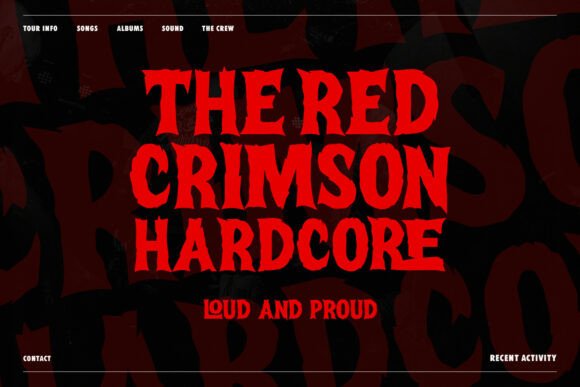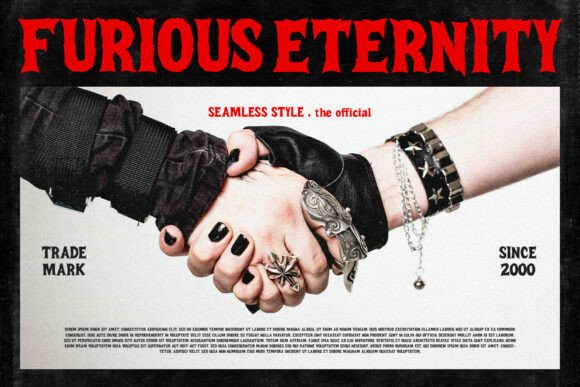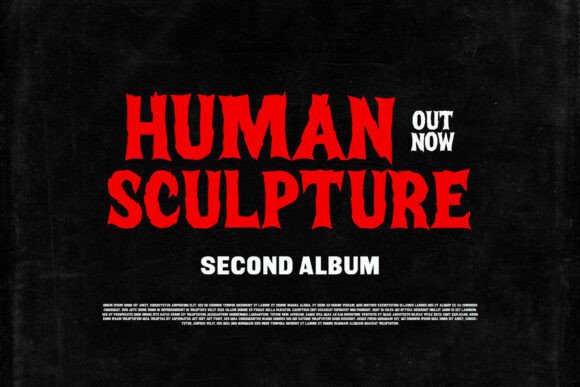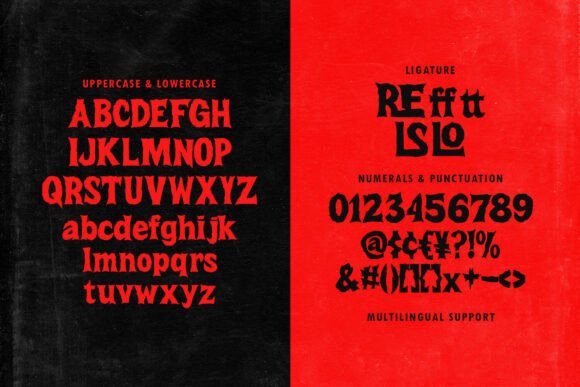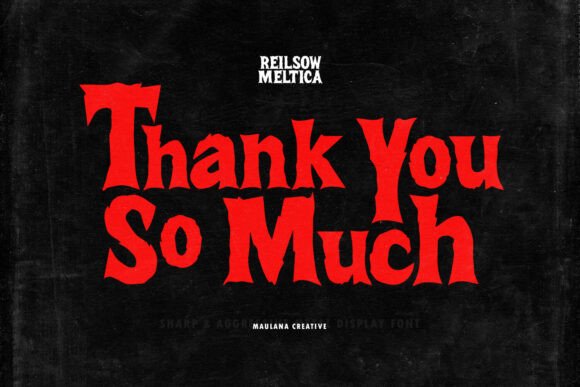
Unlocking the Raw Power of Reilsow Meltica Font
You know that moment when a font just speaks to you, and you can’t imagine your project without it? For many designers, that moment comes when they discover Reilsow Meltica Font. This high-impact display font is not just a design resource, but a key to unleashing the raw energy of your creative project. With its jagged, thorny letterforms and melted silhouette, Reilsow Meltica Font is the ultimate choice for designers looking to create bold, unforgettable headlines.
Whether you’re working on a band logo, concert poster, or streetwear branding, Reilsow Meltica Font is your go-to for high-intensity projects that demand attention. Its raw, energetic structure perfectly captures a “death metal” or “hardcore” aesthetic while remaining highly legible for digital and print media. And the best part? It’s available for free download, making it a valuable addition to any designer’s toolkit.
Key Features of Reilsow Meltica Font
- Unique, hand-drawn design ideal for creative projects and artistic expressions
- Features a transparent background, allowing for seamless integration into various design elements
- High-quality font with crisp, clear characters in a range of sizes and styles
Honest Review: Reilsow Meltica Font
I recently had the chance to work with the Reilsow Meltica Font, and I must say it’s a great addition to any designer’s toolkit. This free download is perfect for those looking to add a touch of elegance to their creative project.
- High-quality design: The Reilsow Meltica Font has a professional, high-quality design that’s sure to impress.
- Transparent background: The font’s transparent background makes it easy to use with any image or design, giving you complete creative control.
- Wide range of applications: Whether you’re working on a logo, poster, or website, the Reilsow Meltica Font is a versatile choice.
One potential drawback of the Reilsow Meltica Font is its limited character set. While it’s a great choice for headings and titles, it may not be suitable for extended blocks of text.
Overall, I’m impressed with the Reilsow Meltica Font. Its high-quality design and transparent background make it a valuable design resource for any creative project.
Tips for Getting the Most Out of Reilsow Meltica Font
To get the most out of the Reilsow Meltica Font, consider using it on a transparent background to create a striking visual effect. You can also experiment with different font sizes and colors to add depth and interest to your design. Additionally, consider pairing the font with other high-quality design resources to create a cohesive and professional look.
The Reilsow Meltica Font is a versatile design resource that can be used in a range of creative projects, including logos, branding materials, and marketing materials. It’s also a great choice for designers looking to add a touch of elegance and sophistication to their designs.
Q: Does the Reilsow Meltica Font have a transparent background?
Yes, the Reilsow Meltica Font has a transparent background, making it ideal for use on designs with complex backgrounds or layers. The font’s transparent background allows for seamless integration with other design elements.